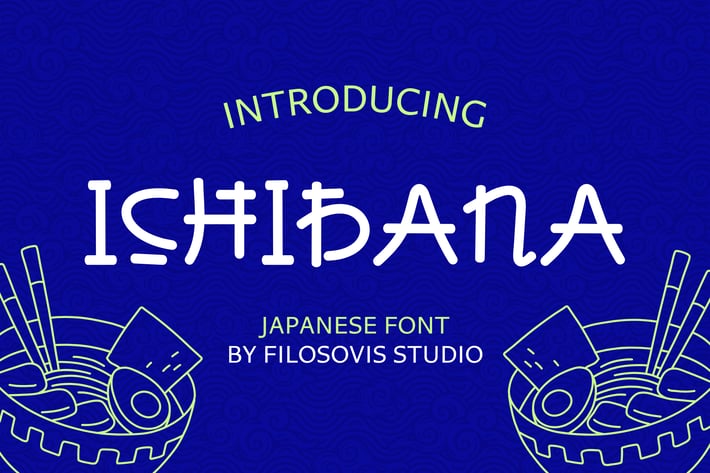
Ichibana | Japanese Font
Ichibana is a beautifully designed, handcrafted font that captures the essence of Japanese culture. Make use of this typeface for your work, presentations, websites, social media, printed products, and much more!